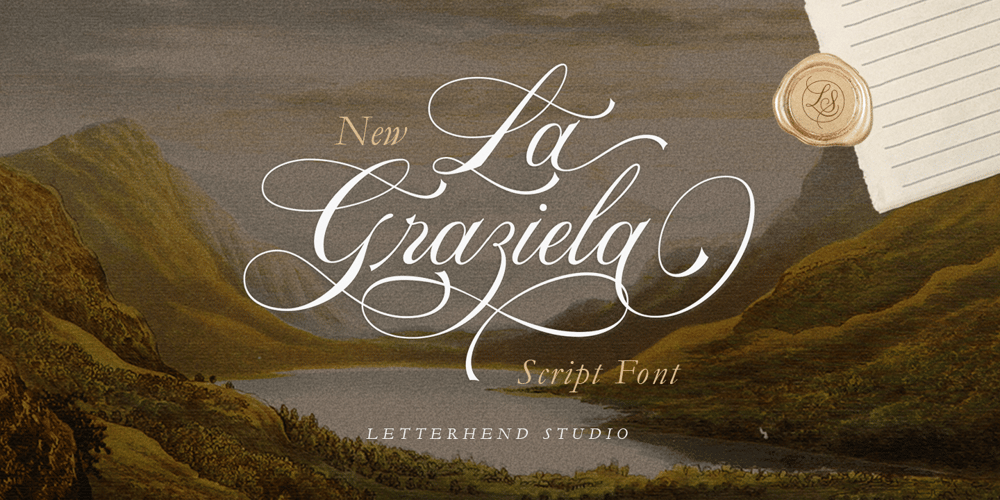
La Graziela Font Family was designed by Hendry Juanda and published by Letterhend. La Graziela contains 1 styles and family package options. Please welcome our newest script typeface, La Graziela. A Beautiful and classy script that has many swashes that allows you to create beautiful lettering instantly. it has many stylistic set alternates that you can choose from.This font perfectly made to be applied especially in logo, and the other various formal forms such as invitations, labels, logos, magazines, books, greeting / wedding cards, packaging, fashion, make up, stationery, novels, labels or any type of advertising purpose.Features : uppercase & lowercase numbers and punctuation multilingual ligatures alternates swashes PUA encoded We highly recommend using a program that supports OpenType features and Glyphs panels like many of Adobe apps and Corel Draw, so you can see and access all Glyph variations.